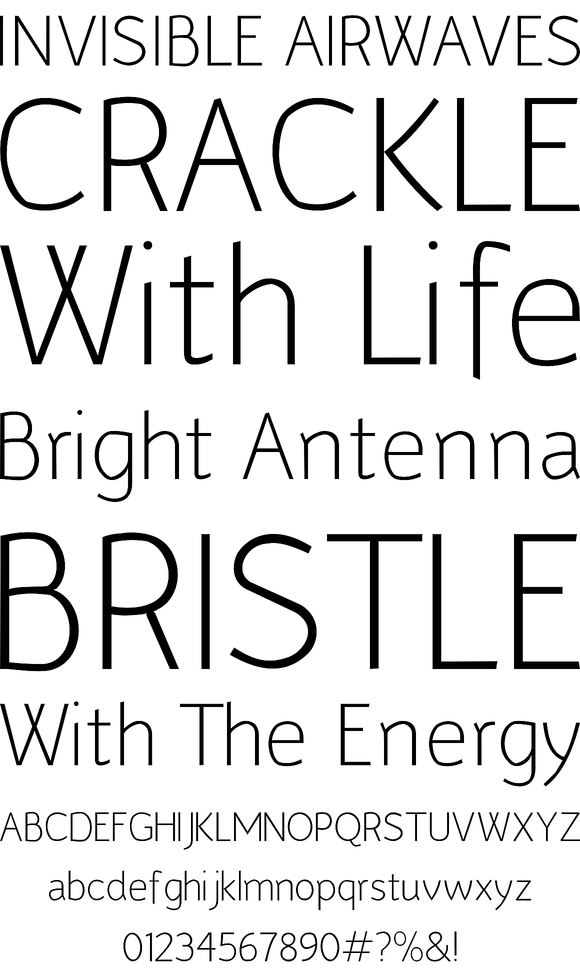
Murena Sans
Foundry: Michal Adamiec
Murena is a sans serif typeface, designed in 3 weights: Light, Regular, Bold, each with italics. Due to its large x-height letters are legible even at small sizes. Yet, their unique feel grants the needed impact, when used in headlines or logos. The letters are expressive and have many sharp-angled details to give it more aggressive feel. It is a versatile typeface, intended for use in various graphic tasks – as a display type, in titles and in a variety of text lengths.